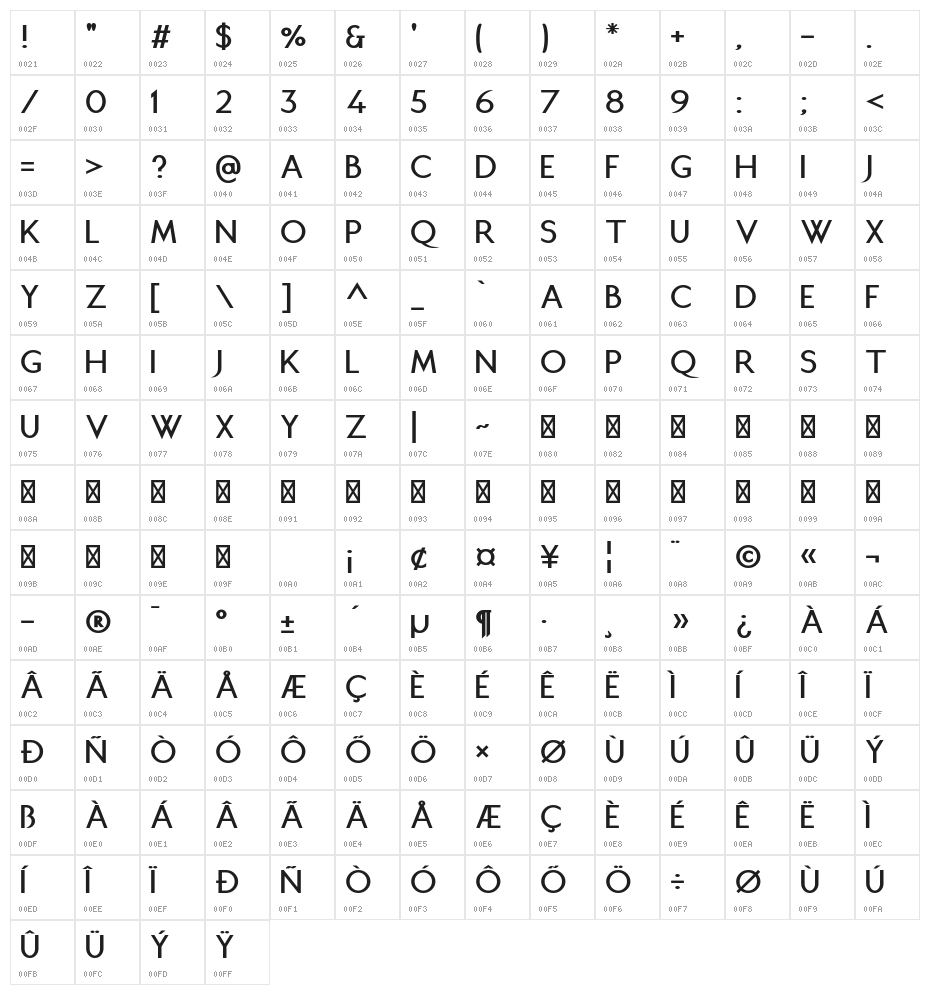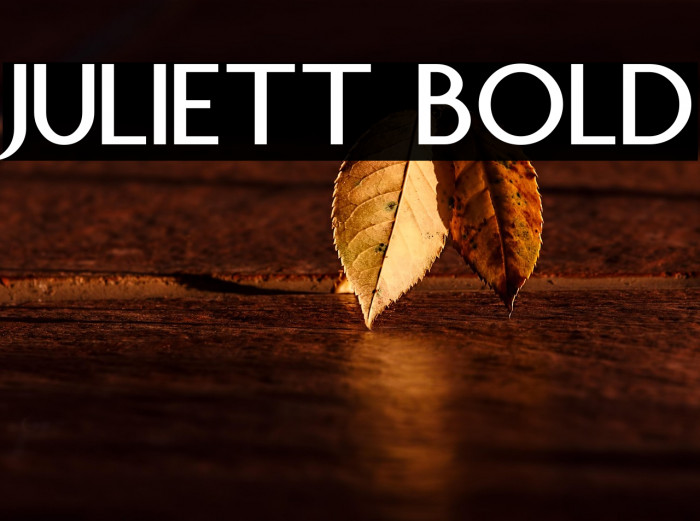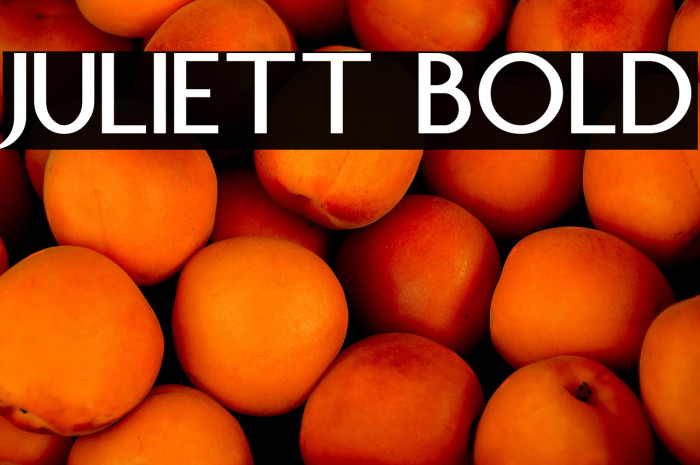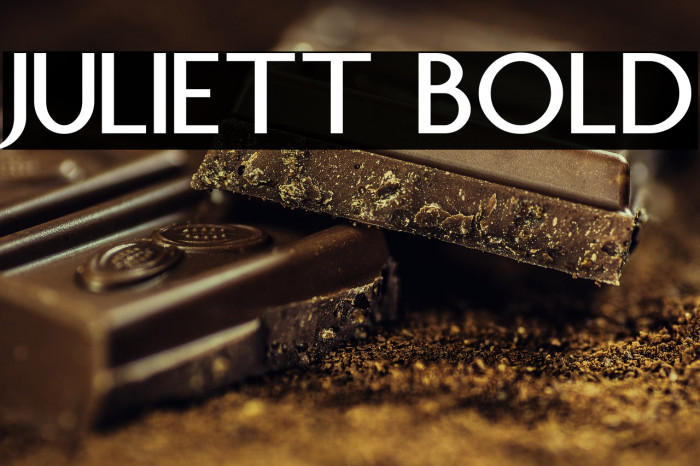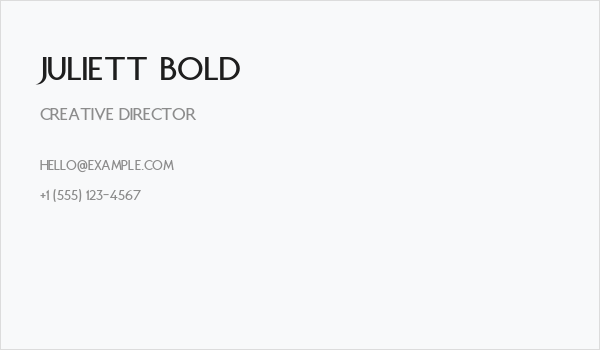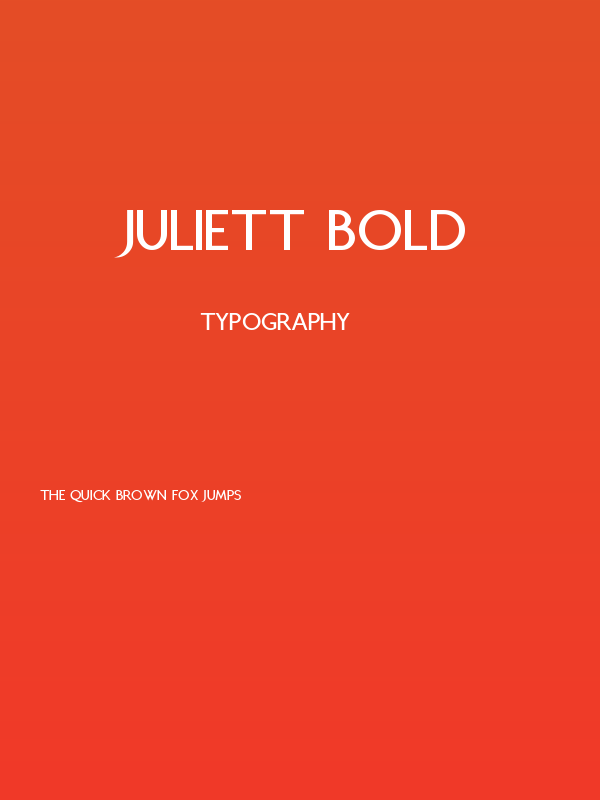
Juliett Bold Font
Juliett Bold Description
This font exhibits a clean and modern aesthetic with a geometric structure. The uppercase letters are bold and assertive, featuring sharp angles and a consistent stroke width that conveys strength and stability. The lowercase letters maintain the same geometric precision, offering a harmonious balance between the two cases. The numerals are clear and legible, designed to complement the overall style. Special characters are crafted with the same attention to detail, ensuring versatility across various applications. The font's uniformity and clarity make it suitable for a wide range of design projects.